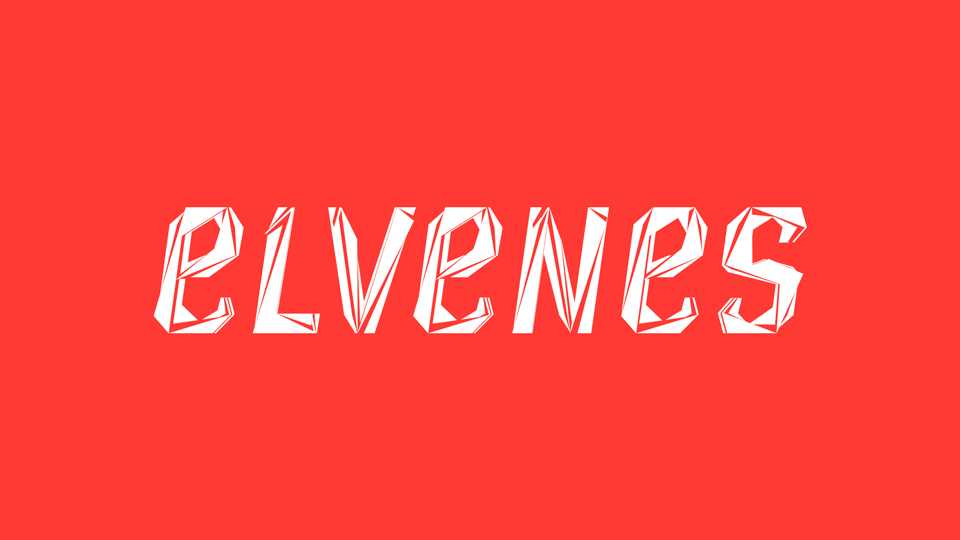
Download Elvenes font, a display typeface created following a reflection on the genre in typography. With a combination of three styles, Elvenes is perfect for posters and typographic compositions.
Designer: Justine Gagnaire